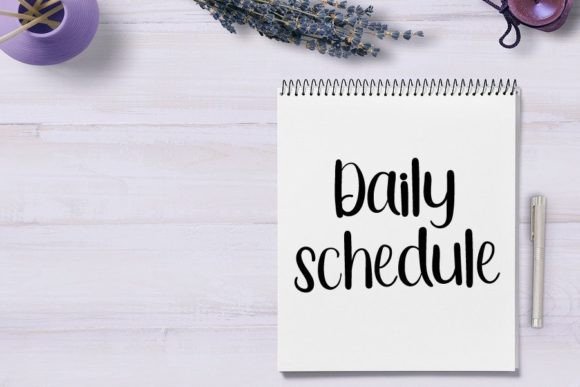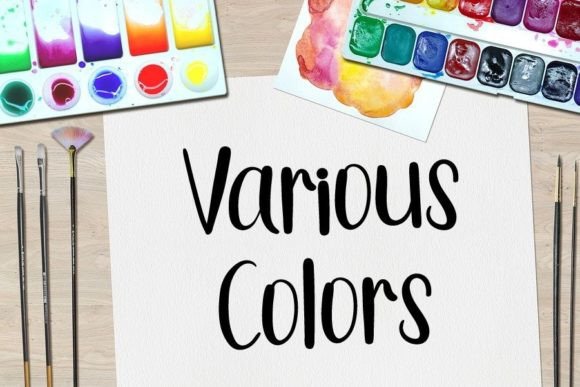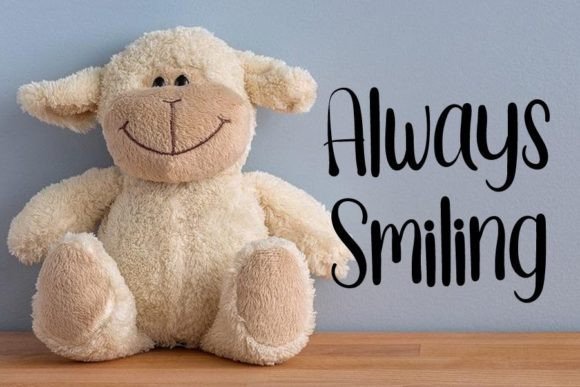
About Writing Skills Font
“Writing Skills” is a fresh and beautiful font that adds a touch of sophistication and creativity to your design projects. Its elegant and stylish appearance makes it suitable for a variety of creative purposes, including YouTube banners, cover logo mockups, wedding invitations, ID cards, flyers, and crafts. With its versatility, “Writing Skills” enhances the visual appeal of different materials, giving your designs a professional and unique edge.
The font’s contemporary and sleek vibe makes it an excellent choice for modern design applications. Whether you’re working on digital or print materials, “Writing Skills” offers a clean and attractive aesthetic that can elevate the overall look of your projects. Its simplicity and uniqueness make it stand out, leaving a lasting impression on your audience.
One of the strengths of “Writing Skills” is its ability to add a touch of sophistication to your designs. Its well-crafted characters create a harmonious visual experience, making your text appear polished and visually appealing. The font’s readability ensures that your message is conveyed clearly and effectively, making it suitable for various communication purposes.
By incorporating “Writing Skills” into your projects, you’re enhancing their visual impact and professionalism. Its fresh and beautiful design adds a touch of elegance, making your designs visually appealing and memorable. Whether you’re a graphic designer, a business owner, or an individual working on personal projects, “Writing Skills” provides you with a versatile and stylish font choice to enhance your creative endeavors and create designs that leave a lasting impression.